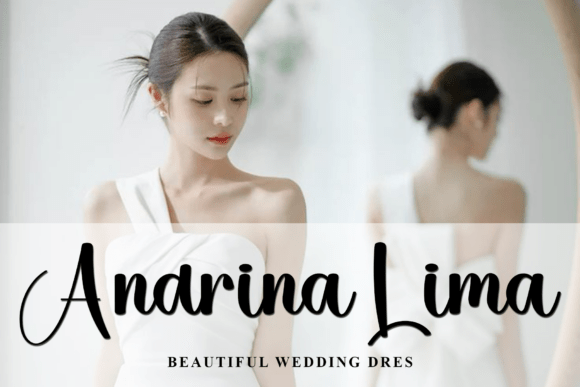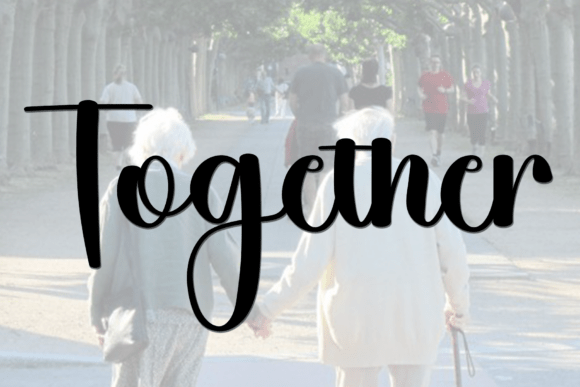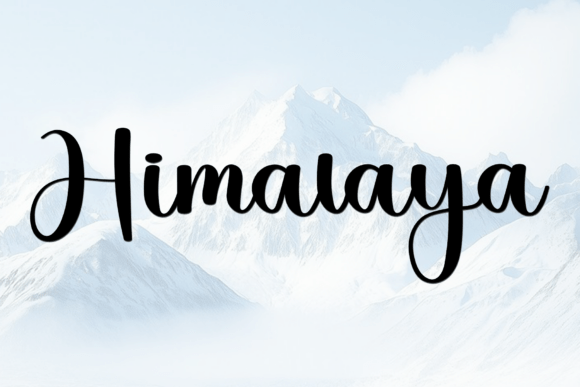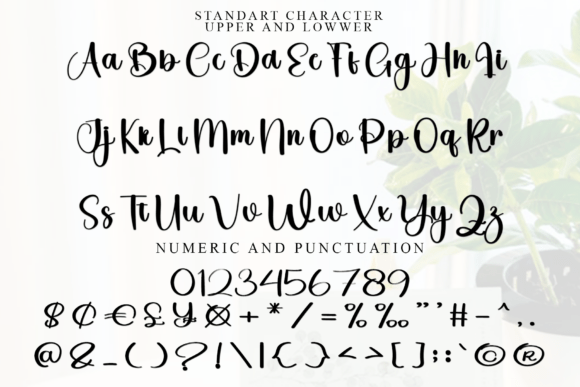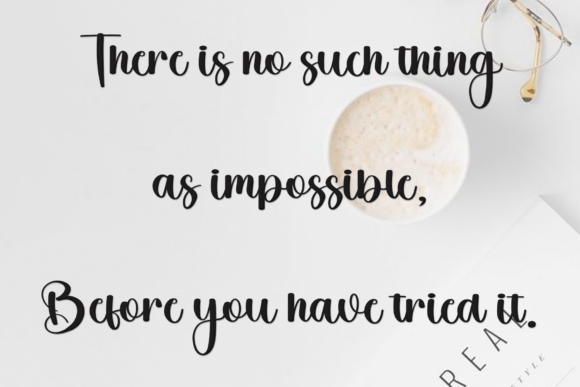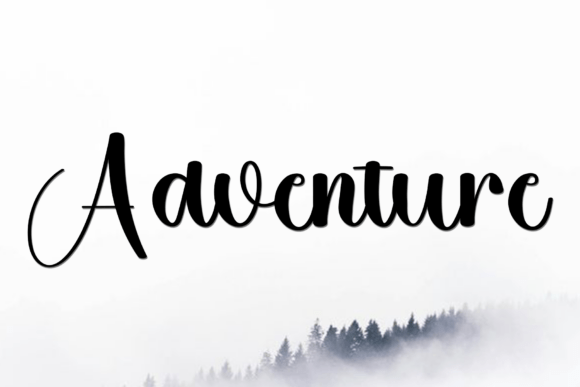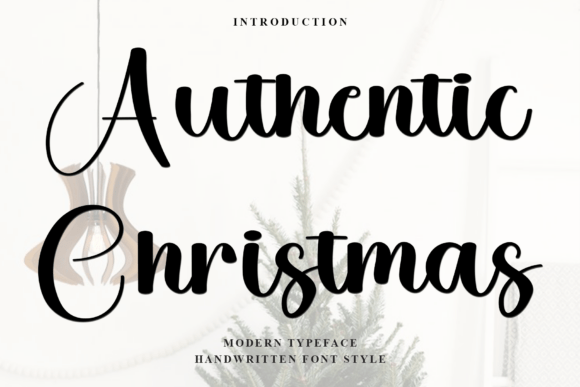
Discover the Magic of Authentic Christmas Font: Elevate Your Designs with a Touch of Festivity
As the holiday season approaches, designers and crafters are on the lookout for the perfect typography to add a touch of magic to their projects. If you’re searching for a font that embodies the spirit of Christmas, look no further than the Authentic Christmas Font. This beautiful and eye-catching font is designed with a soft, unique touch that is sure to make your designs stand out.
The Unique Charm of Authentic Christmas Font
The Authentic Christmas Font boasts distinctive strokes that give it a special character, making it meaningful and versatile for future use. Its unique design ensures that your projects will have a fresh and festive look that’s perfect for the holiday season. Whether you’re working on a Christmas card, a holiday-themed craft, or a festive design project, this font is sure to add a touch of elegance and sophistication.
One of the best things about the Authentic Christmas Font is its versatility. With a wide range of characters, you can use it to create a variety of designs, from simple and elegant to complex and ornate. The font is perfect for:
- Christmas cards and invitations
- Holiday-themed crafts and DIY projects
- Festive design projects, such as posters and flyers
- Packaging and labeling for holiday-themed products
Why Choose Authentic Christmas Font?
So why choose the Authentic Christmas Font for your holiday designs? Here are just a few reasons:
- Unique and eye-catching design: The Authentic Christmas Font is unlike any other font you’ll find. Its distinctive strokes and soft, unique touch make it a standout typography choice.
- Versatility: With a wide range of characters, you can use the Authentic Christmas Font to create a variety of designs, from simple to complex.
Tips for Using Authentic Christmas Font
Here are a few tips for using the Authentic Christmas Font in your designs:
- Experiment with different sizes and colors: The Authentic Christmas Font looks great in a variety of sizes and colors. Experiment with different combinations to find the one that works best for your design.
- Pair it with other fonts: The Authentic Christmas Font pairs well with other fonts, such as sans-serif and script fonts. Try pairing it with a complementary font to add visual interest to your design.
- Use it consistently: To create a cohesive look, use the Authentic Christmas Font consistently throughout your design.
The Authentic Christmas Font is a beautiful and versatile typography choice that’s perfect for designers and crafters looking to add a touch of festivity to their projects. With its unique and eye-catching design, compatibility with a wide range of applications, and ease of use, it’s the perfect font for holiday designs. Whether you’re creating Christmas cards, holiday-themed crafts, or festive design projects, the Authentic Christmas Font is sure to elevate your designs and make them appealing to a wide range of audiences.